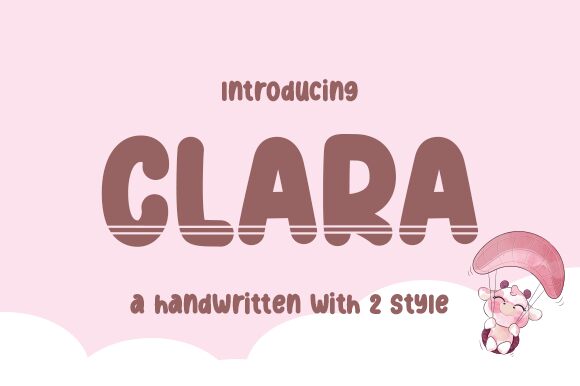
Clara, the extra-bold, semi-condensed display font by Nirmala Creative is here to add a playful touch to your projects. Its cartoon style makes it perfect for children's book covers, invitations, and posters. Use it to create fun and vibrant designs that will grab attention and leave a lasting impression. Clara's boldness works well for headlines, while its semi-condensed width allows for longer blocks of text without sacrificing legibility. Get creative with Clara and elevate your design game!
Clara